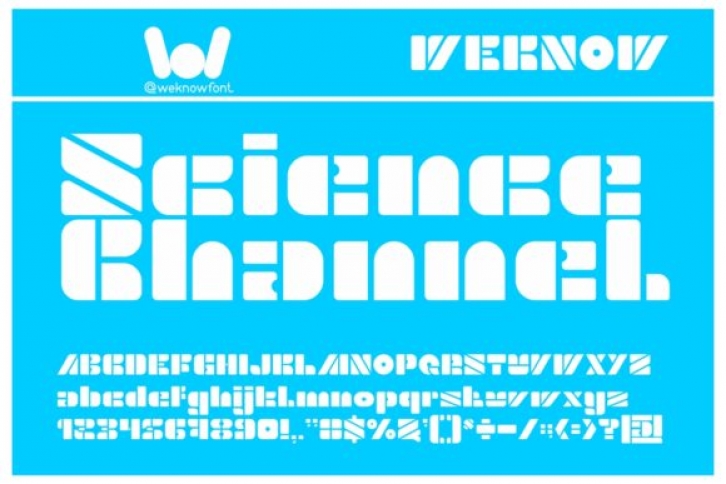
Science Channel is a cool and techno display font. It is both trendy and authentic. Add this chunky lettered font to your designs and notice how it makes them come alive!